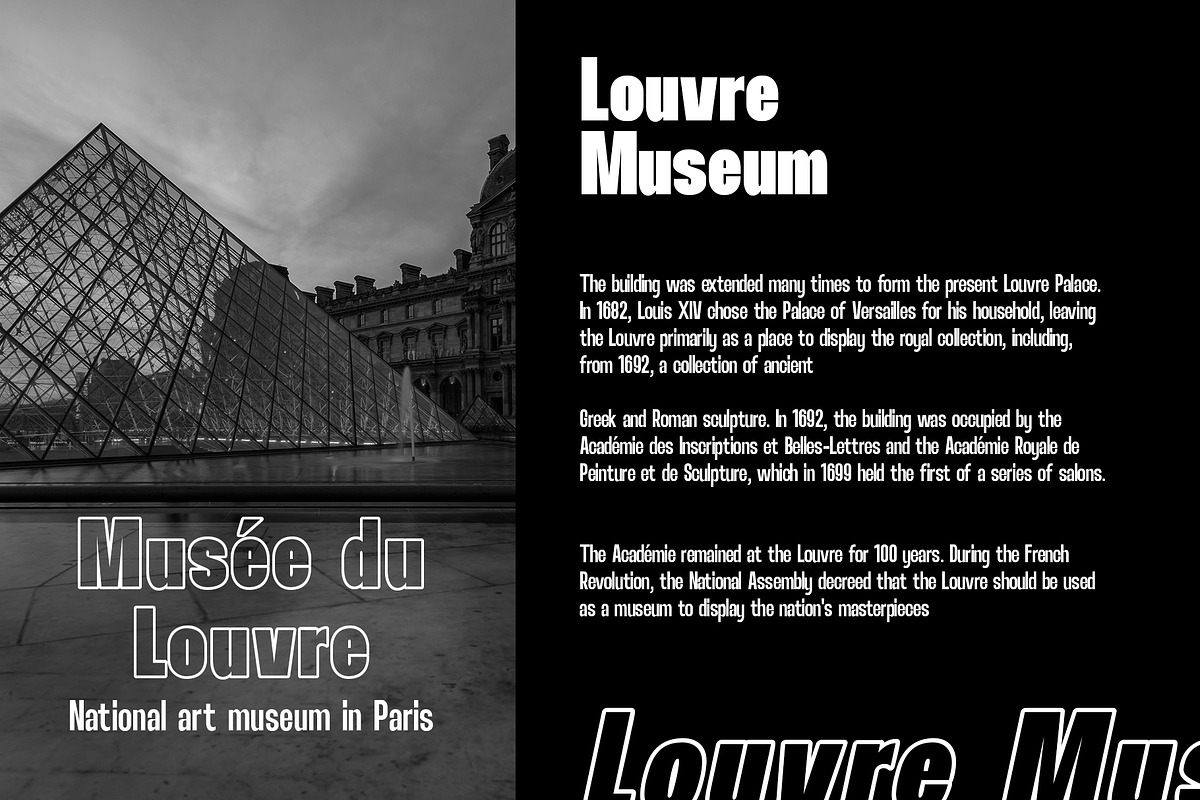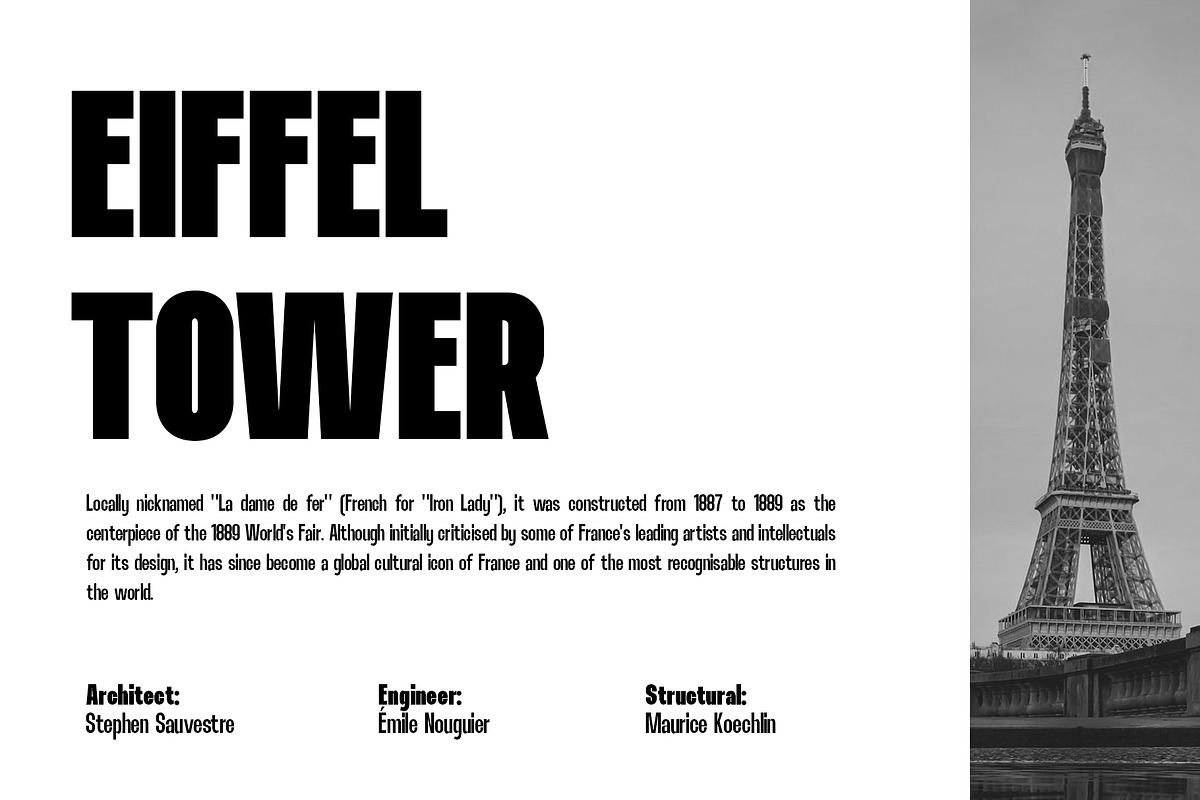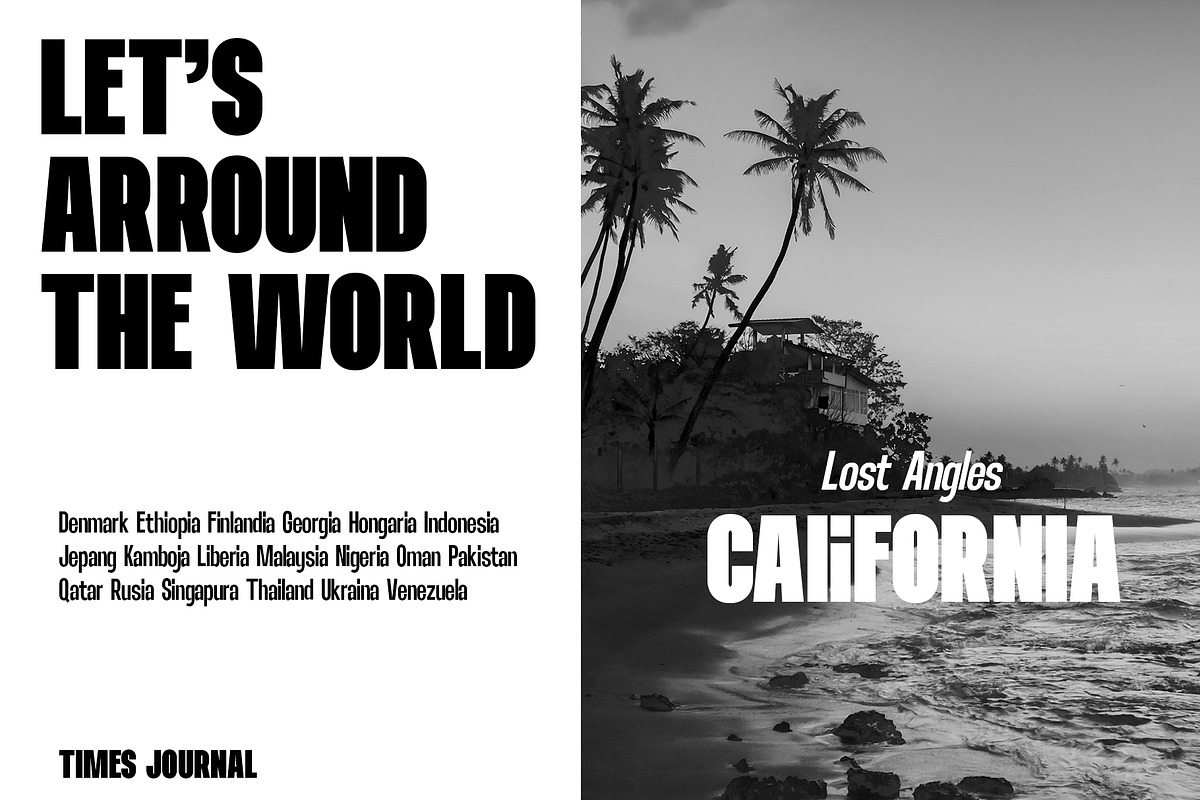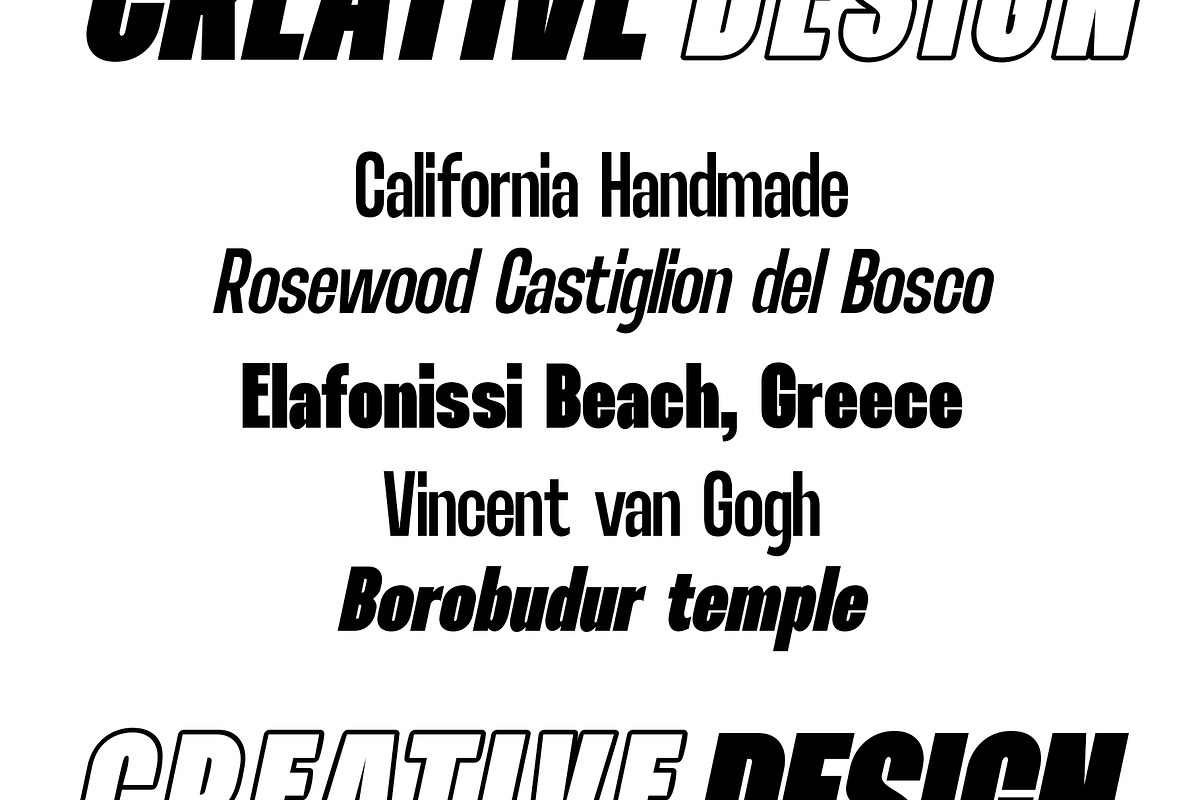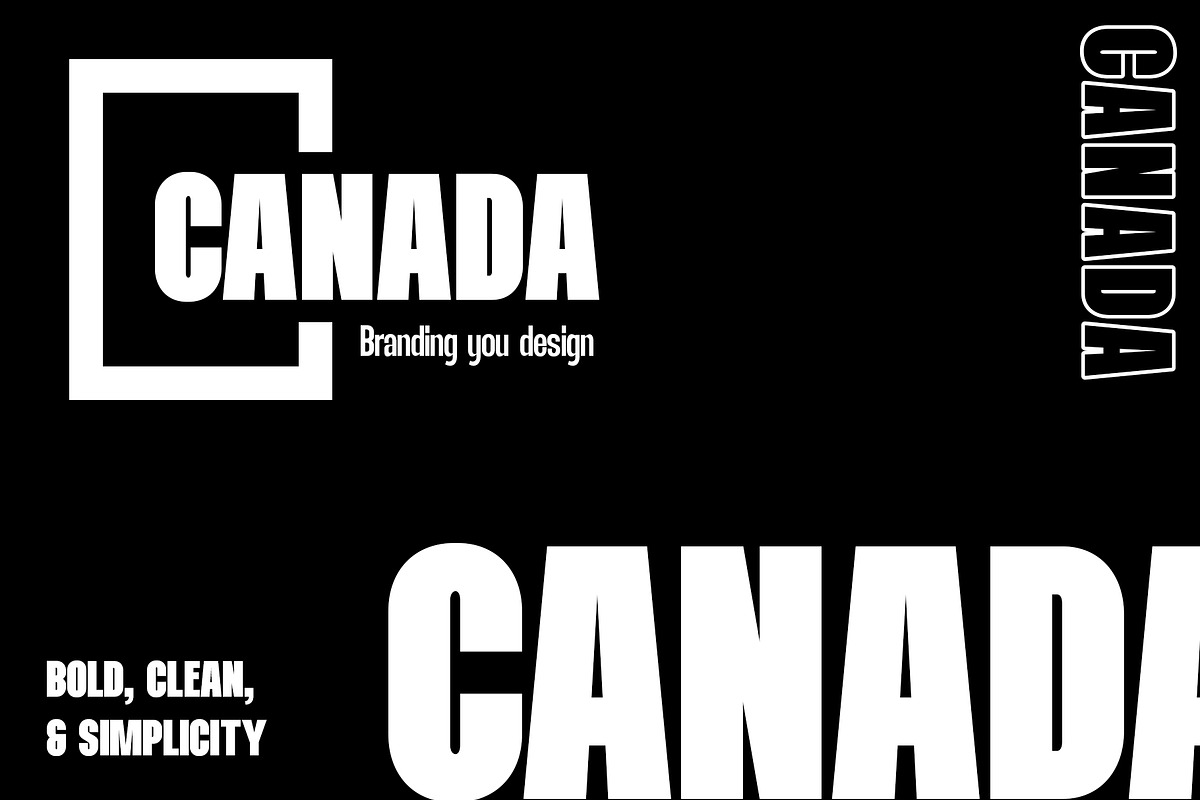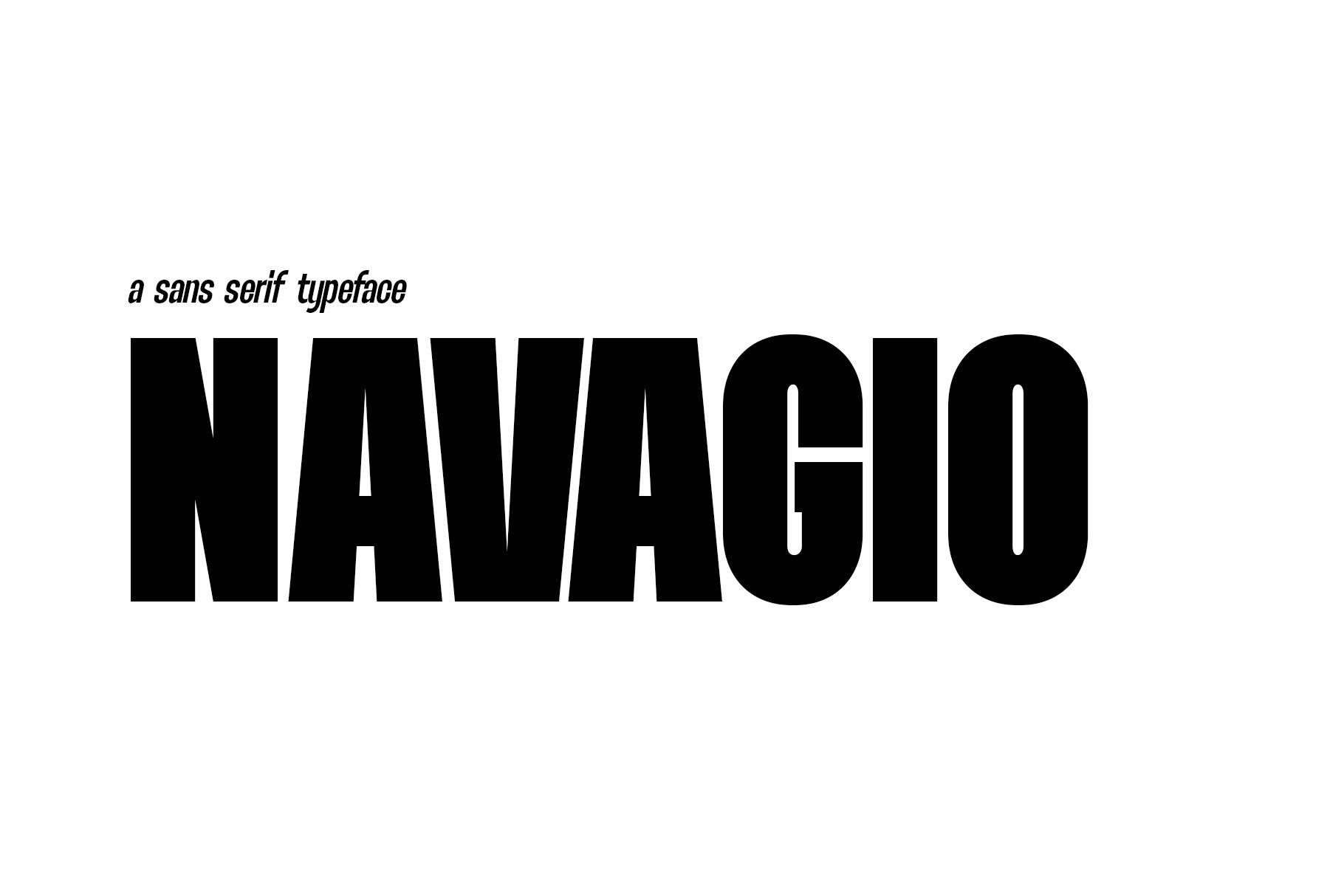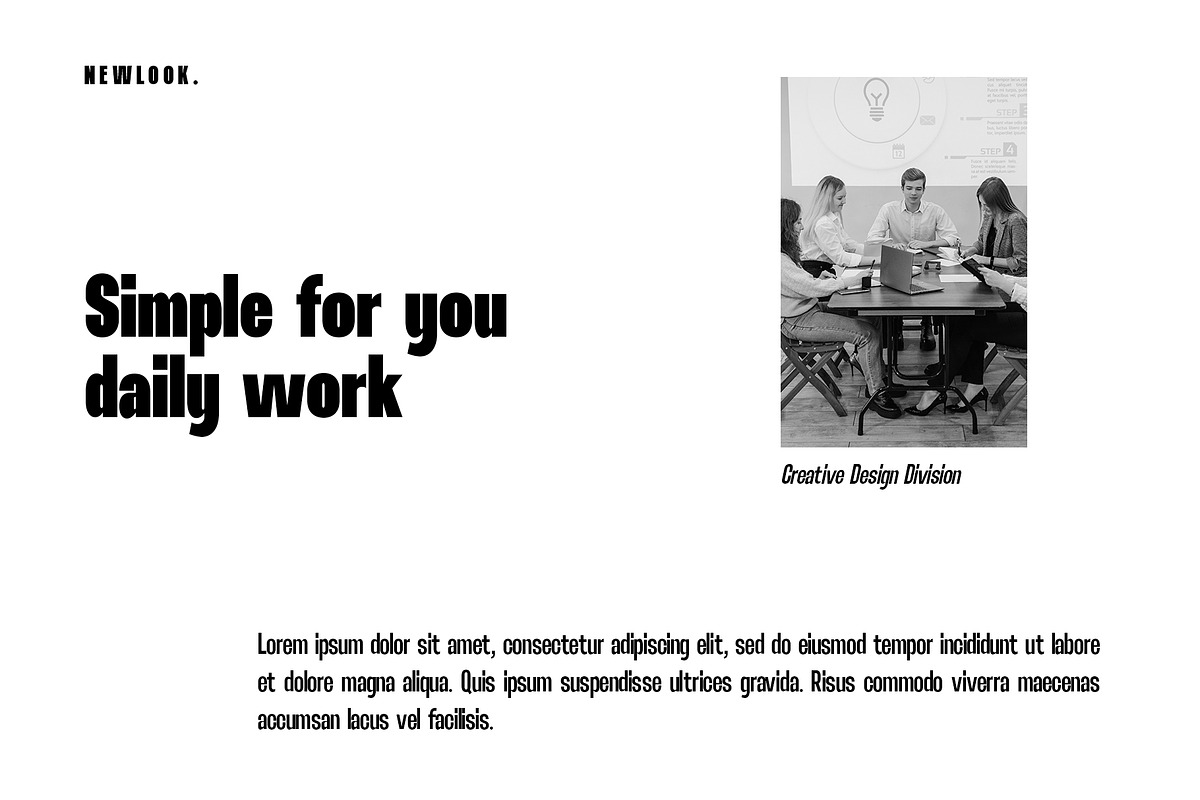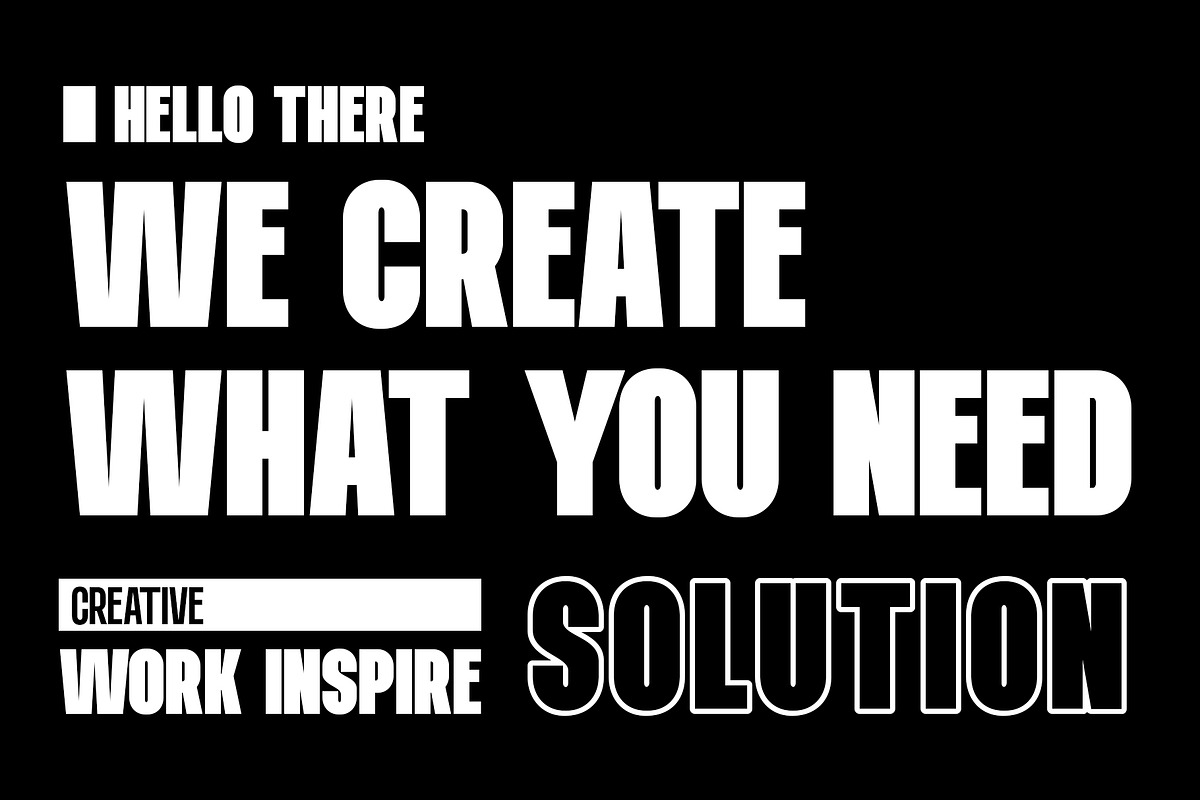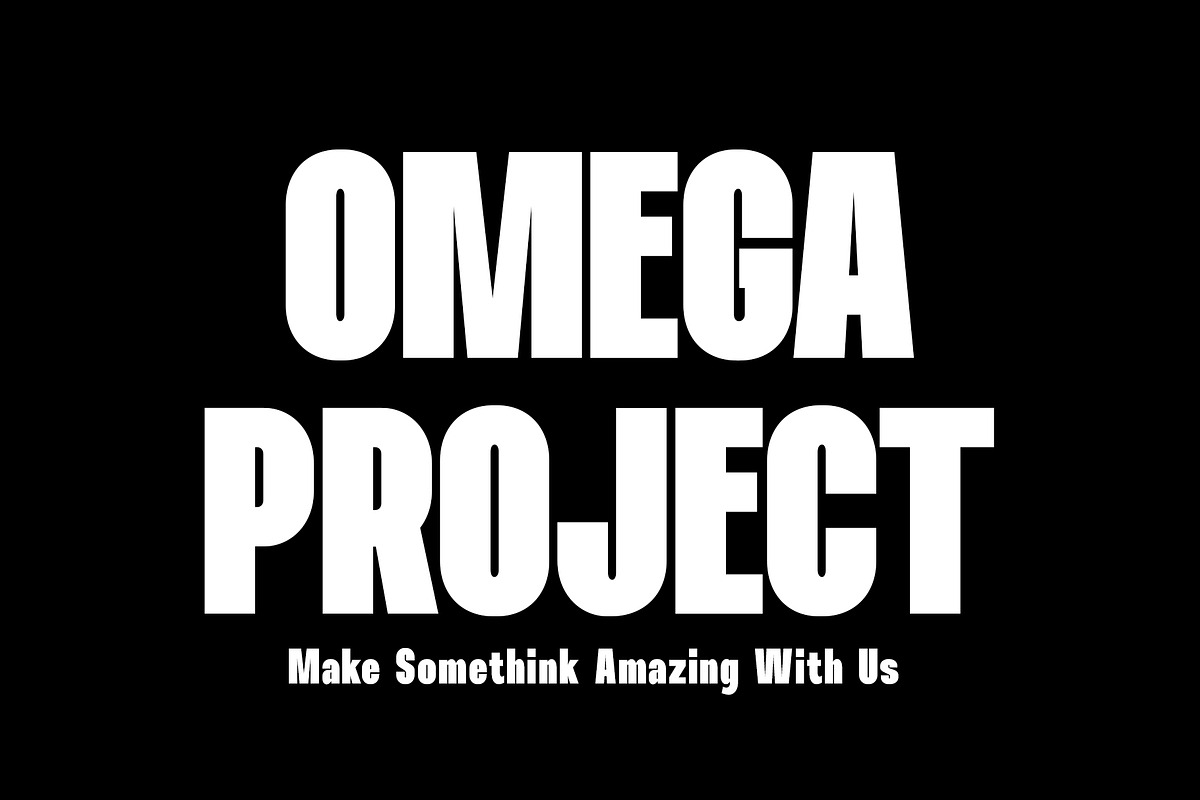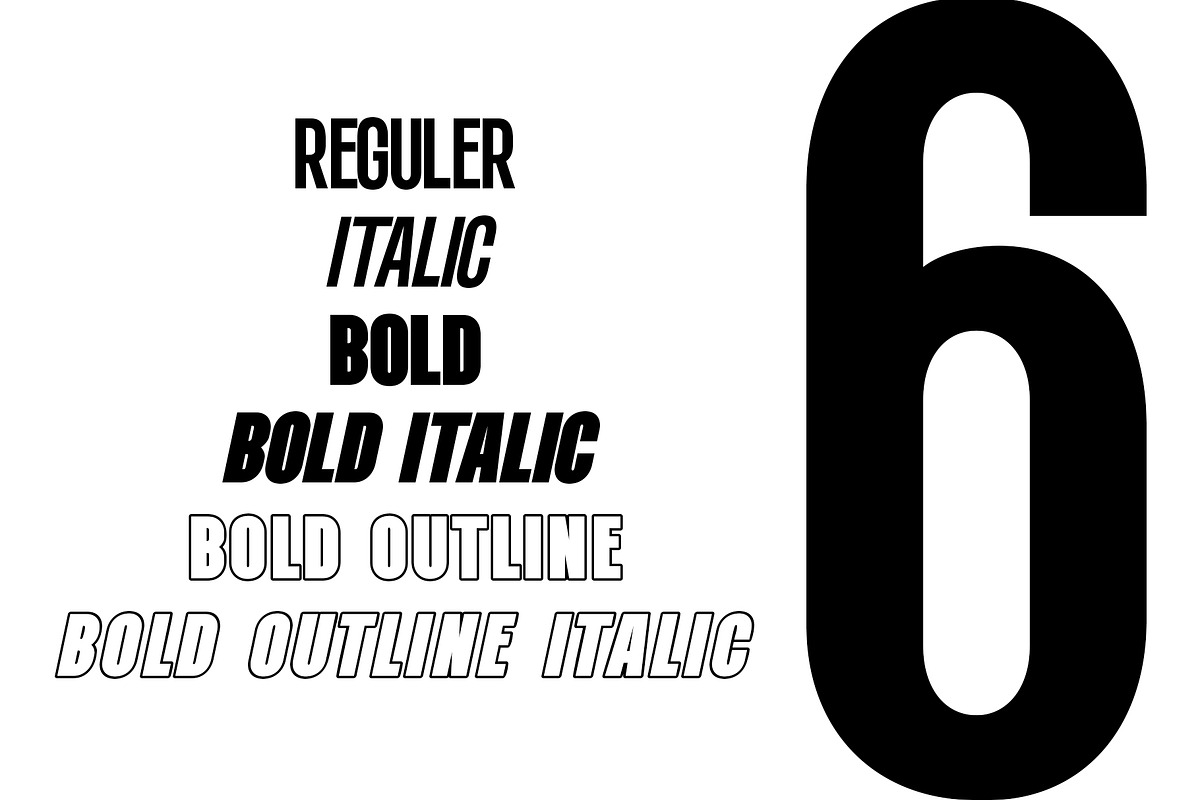
Navagio Sans Serif Font Family
Navagio is new sans serif font family with lowercase. We make it look modern, high and clean. Navagio have 2 weight and 6 font included.
Navagio will perfect for many project: branding, logos, magazines, films, poster, quotes, broadcast, photography, invitation, blog, advertising, postcard, book, social media, website, etc. Navagio here to make your brand to high level!!!
- Standar letter A-Z and a-z
- Multilinggual support